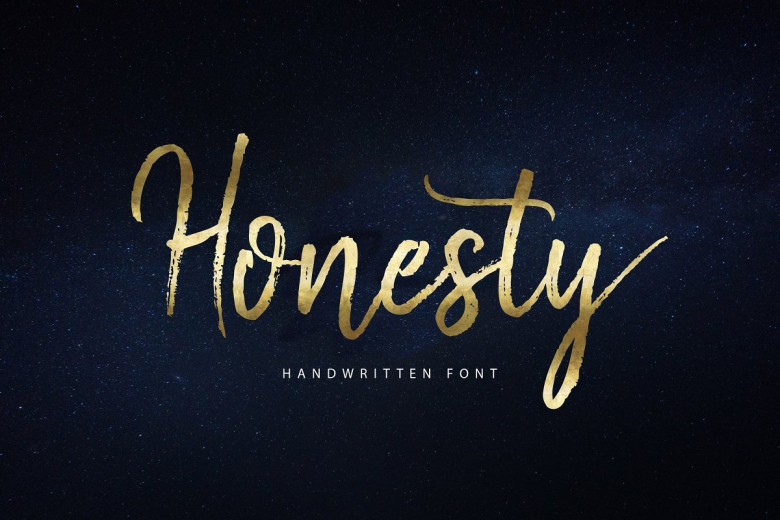
Honesty Script Font
Introducing Honesty Font. It is designed by Unicode, this is a premium font, are sold on creativemarket, but it was great, it is free today for download. Honesty Script is a new fresh & natural script font with a handwritten style. This font comes to give a natural feel for the designer in working on various projects, So Perfect and beautiful on invitation like greeting cards, branding materials, business cards, quotes, posters, Logos, Greeting Cards, Wedding Stationery, and more!